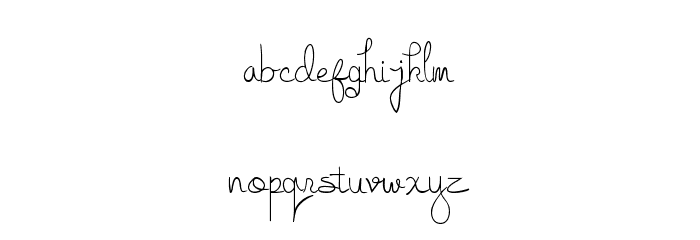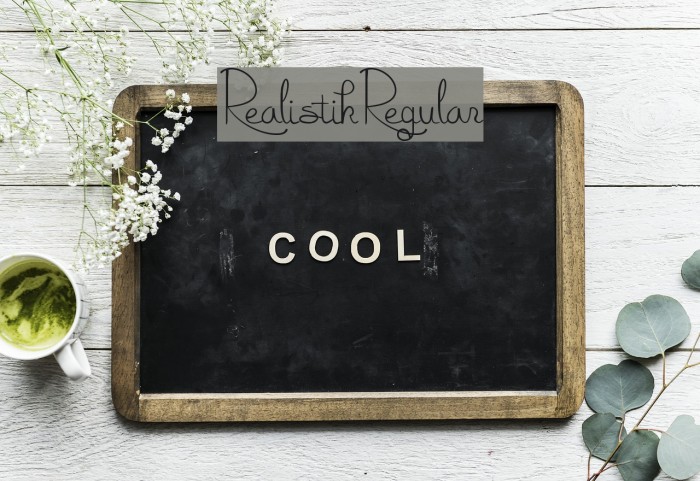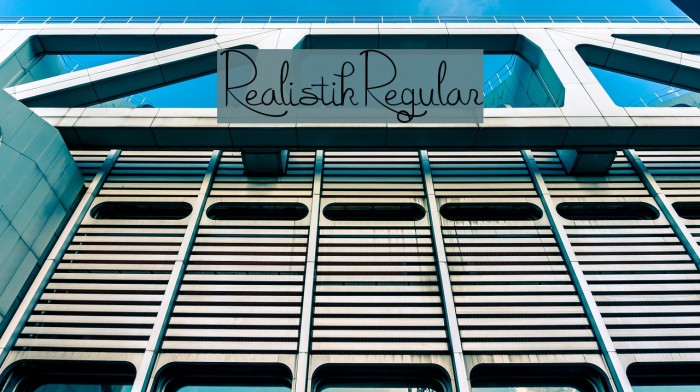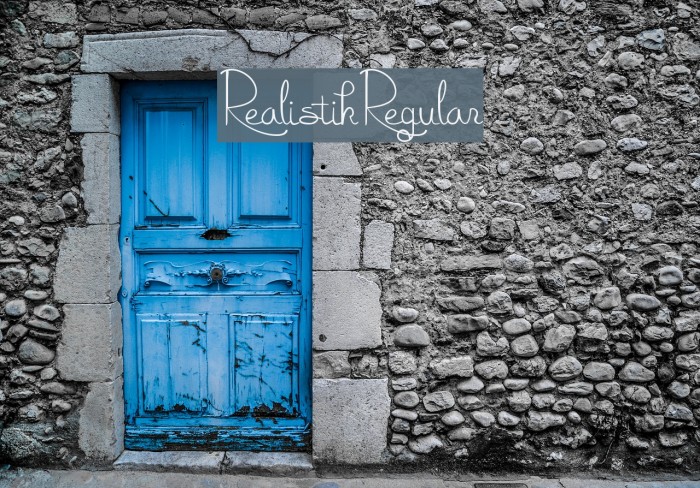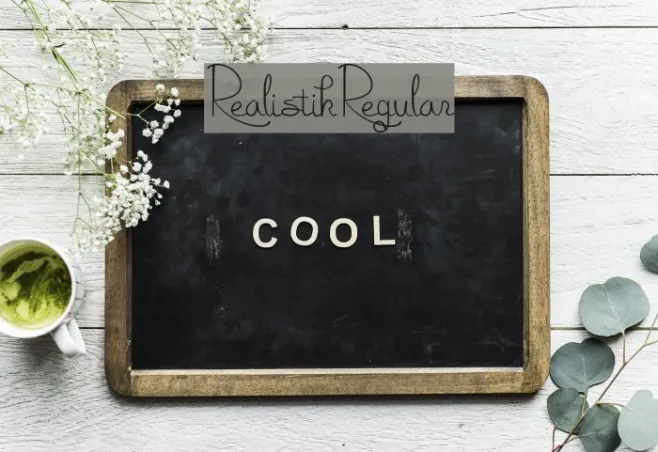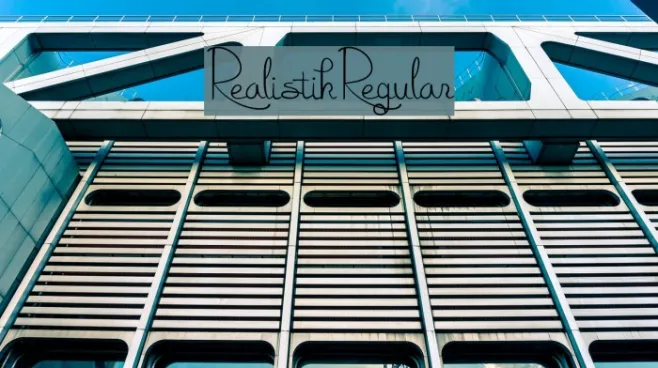
Realistik-Regular Font
This font exhibits a unique handwritten style with an elegant and flowing script. The uppercase letters have a whimsical, artistic flair, characterized by elongated strokes and loops that give it a playful yet sophisticated appearance. The lowercase letters maintain a consistent style, with smooth curves and a delicate touch that enhances readability while retaining the font's distinctive charm. The overall design is airy and light, making it suitable for creative and expressive projects. The absence of traditional serifs and the presence of fluid lines contribute to its modern and stylish look.
A whimsical handwritten script with elegant, flowing lines.
- Proposed Projects: Ideal for wedding invitations, greeting cards, personal branding, and artistic projects that require a touch of elegance and creativity.
- Use Case: Logos, Invitations, Artistic projects